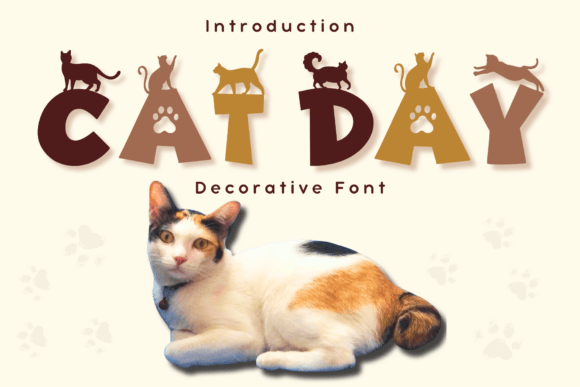
The Purrfect Font: A Deep Dive into Cat Day Font
Cat Day is a feline decorative font that’s perfect for adding a touch of personality to your designs. In this article, we’ll explore what makes Cat Day Font so special, its uses, and some practical tips on how to get the most out of it.
- ✨ Unique and playful design that’s sure to stand out
- ✅ Highly versatile and can be used for a variety of projects, from notes and diaries to greeting cards and social media posts
- 💕 Adorable feline-inspired details that add a touch of whimsy to your designs
While Cat Day Font is an amazing font, there are a few things to keep in mind:
- ⚠️ Some characters may be a bit tricky to read at small sizes, so it’s best to use it for larger text or headlines
- 🤔 Limited availability of certain special characters, but this can be worked around with a little creativity
The Designer Inspiration Behind Cat Day Font
Cat Day Font was inspired by the joy and playfulness of cats. The designer, a self-proclaimed cat lover, wanted to create a font that captured the whimsy and personality of our feline friends.
| Font Name | Cat Day Font |
| Author | Pui Art |
| What is Cat Day Font best used for? | Cat Day Font is best used for designs that need a playful and whimsical touch, such as greeting cards, social media posts, and party invitations. |
| Is Cat Day Font suitable for body text? | While Cat Day Font is a beautiful font, it’s best used for headlines or larger text. For body text, a clearer font may be more suitable. |